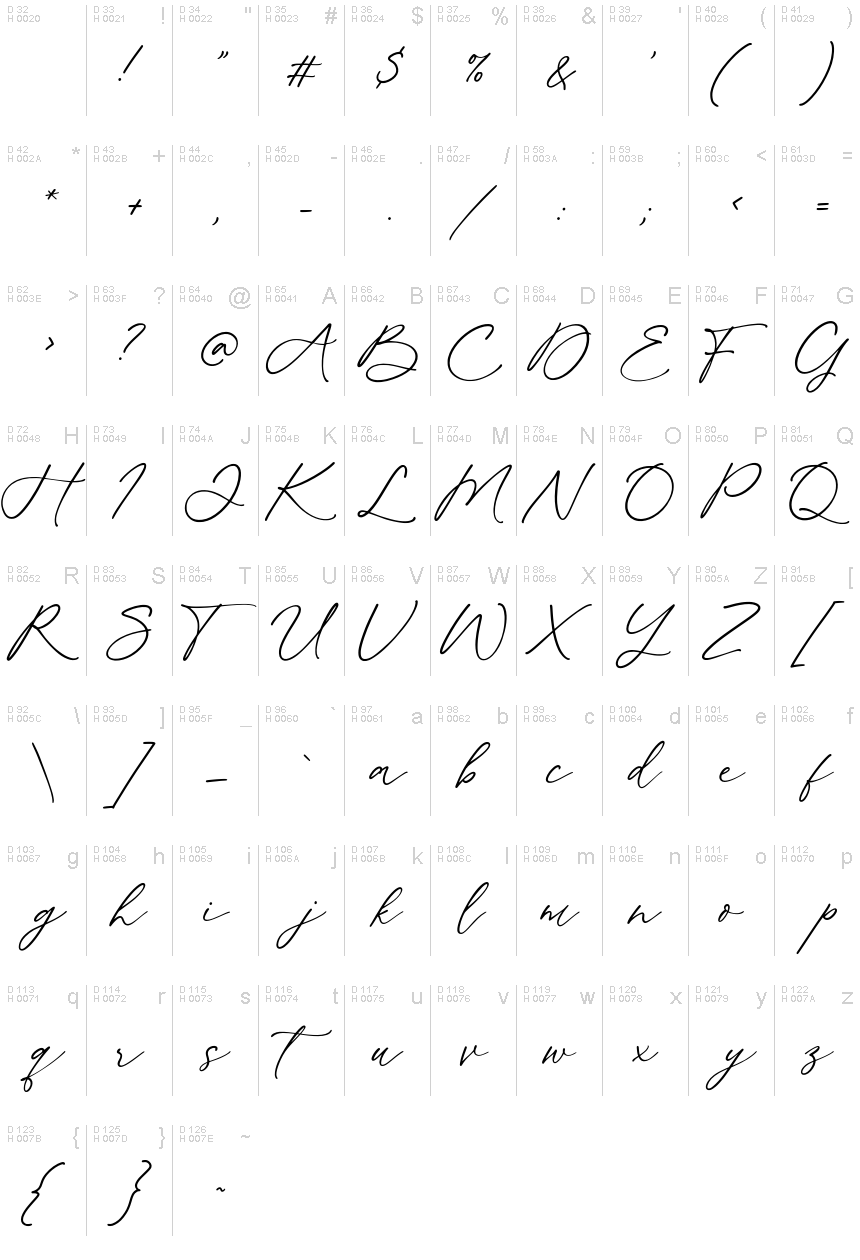
Amourette-Regular
Amourette, crafted by the creative minds at Lunas Type, encapsulates the essence of personal touch in its light and flowing handwritten style. With its signature aesthetic, this font exudes an intimate charm that resonates with elegance and subtlety. The delicate weight of Amourette is reminiscent of a skilled calligrapher's stroke, making it an exquisite choice for invitations, branding, and editorial designs where a touch of finesse is desired.
The fluidity of its characters suggests a versatility that is ideal for projects aiming to convey sophistication and grace. Whether it's used for crafting heartfelt messages on greeting cards or elevating the visual narrative of luxury packaging, Amourette stands as a testament to the beauty found in handcrafted typography. Its allure lies not just in its appearance but in the potential it offers designers to create works that speak with authenticity and artistic flair.